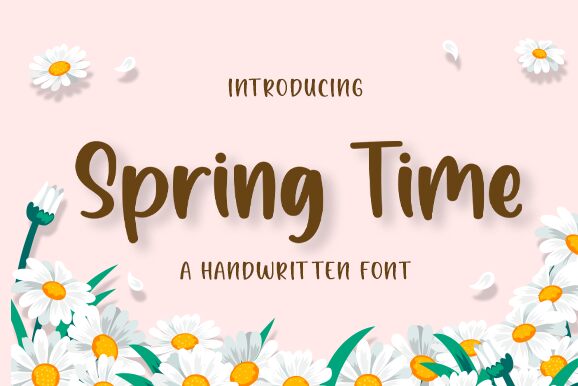
Spring Time is a charming handwritten font designed by Nirmala Creative. Its adorable style is perfect for a variety of projects, from wedding invitations to social media graphics. With its delicate strokes and playful curves, Spring Time adds a touch of whimsy to any design. This semi-bold font is suitable for both headlines and body text, while its medium width ensures readability on any screen or print material. Whether you're creating a logo for a children's brand or designing a greeting card, Spring Time is the perfect choice for adding some cuteness and personality to your project.